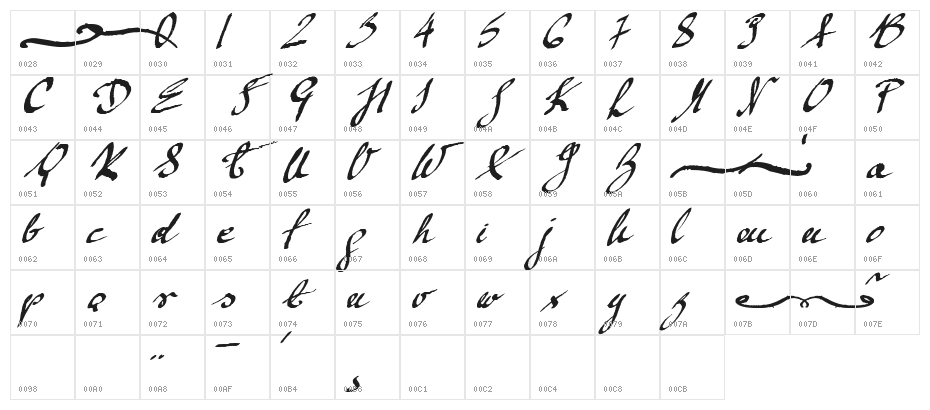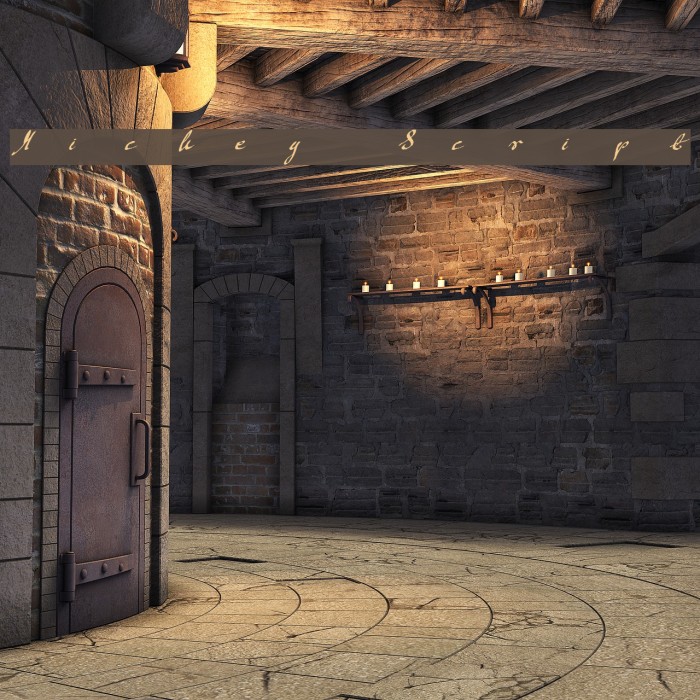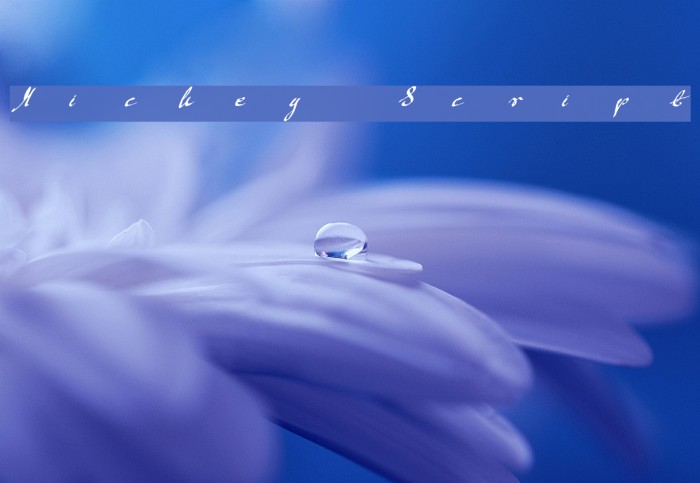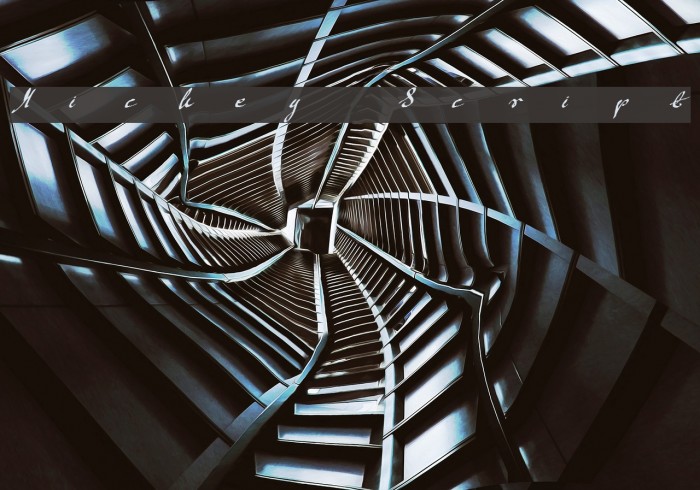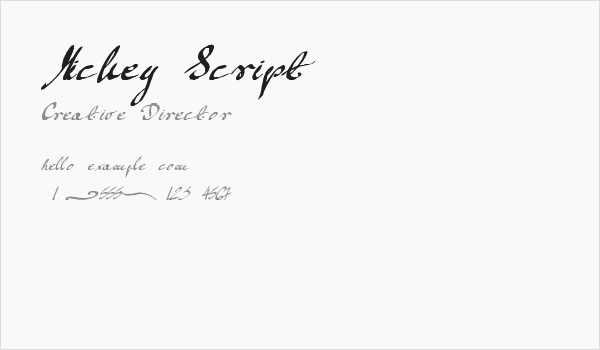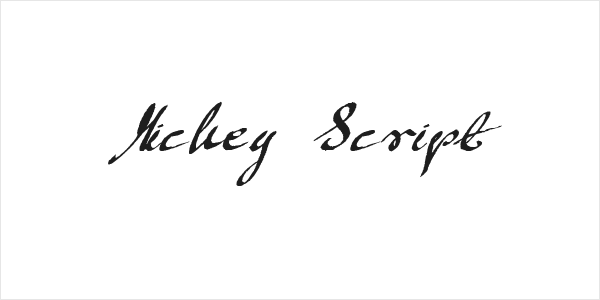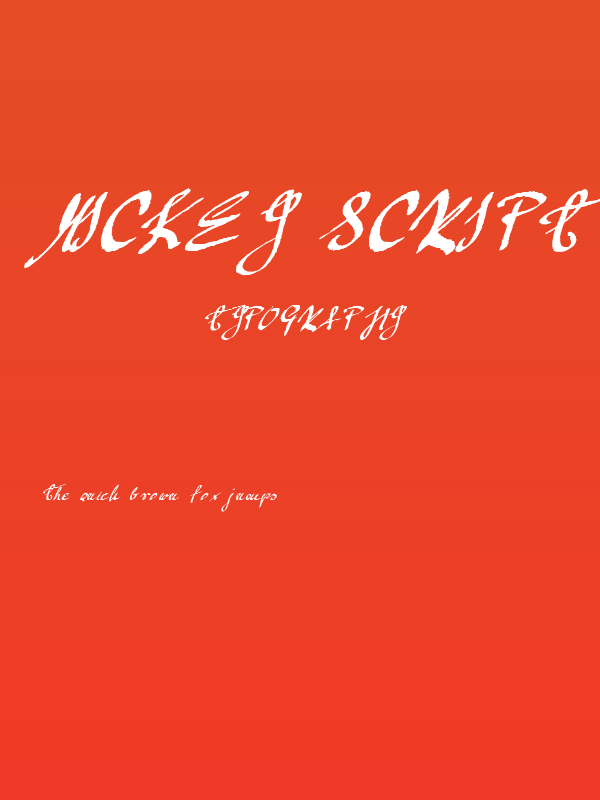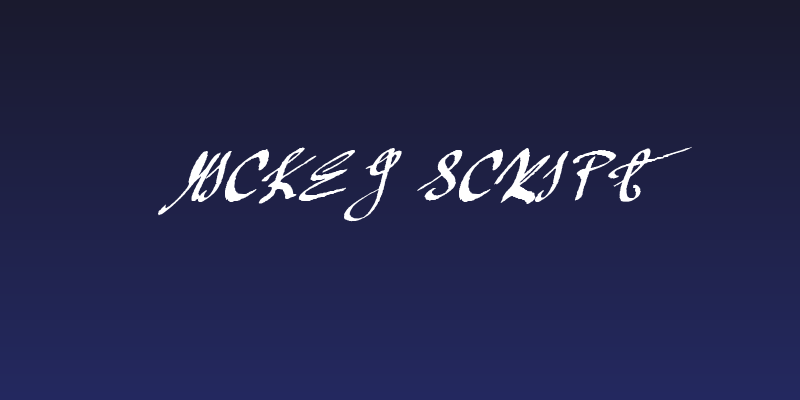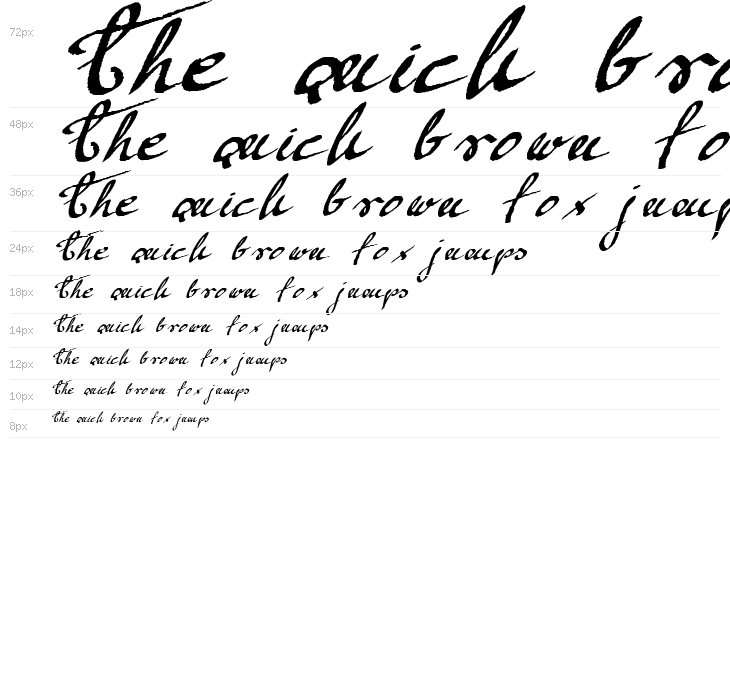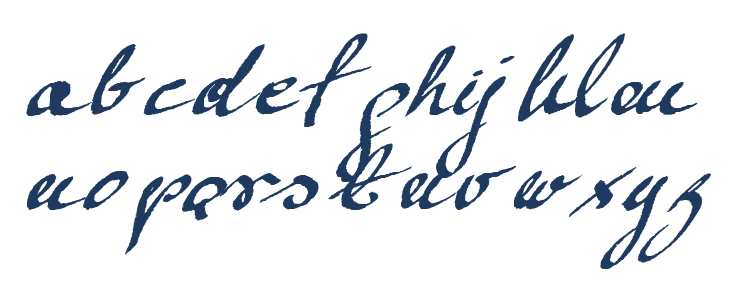
Mickey Script Font
Mickey Script Description
This elegant script font features a fluid and graceful design, reminiscent of traditional calligraphy. The characters are connected with smooth, flowing strokes that create a sense of movement and sophistication. The uppercase letters are slightly more ornate, with decorative flourishes that add a touch of elegance. The lowercase letters maintain a consistent style, ensuring readability while preserving the artistic flair. The numbers and special characters are designed to match the overall aesthetic, making this font suitable for a variety of creative projects.
| Overall Style | Elegant, Calligraphic |
| Proposed Projects | Ideal for wedding invitations, greeting cards, elegant branding, and decorative signage. |